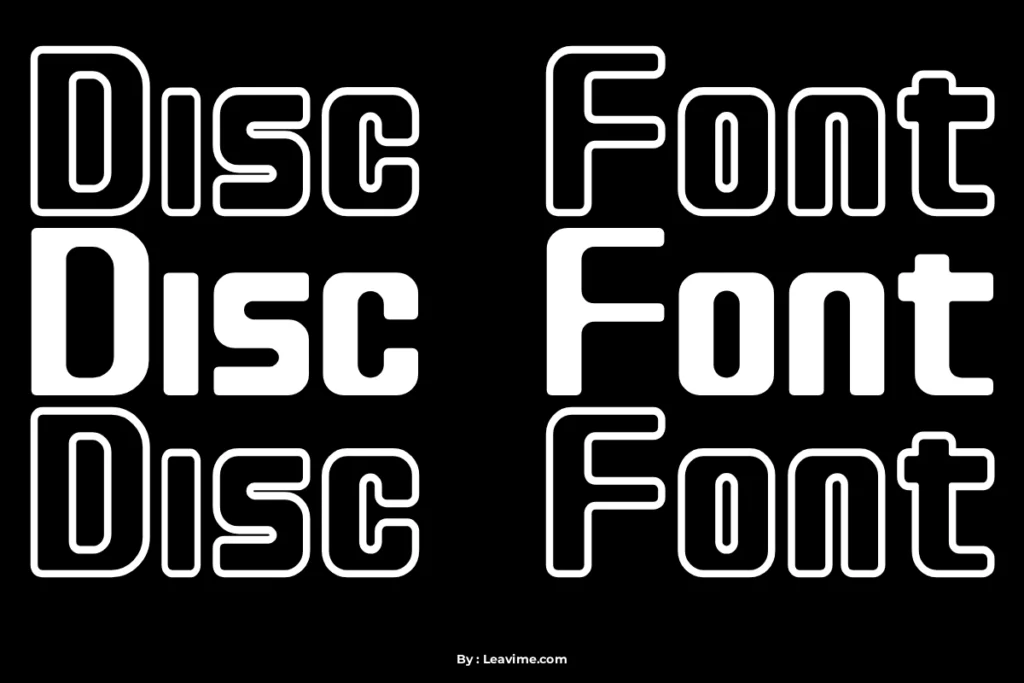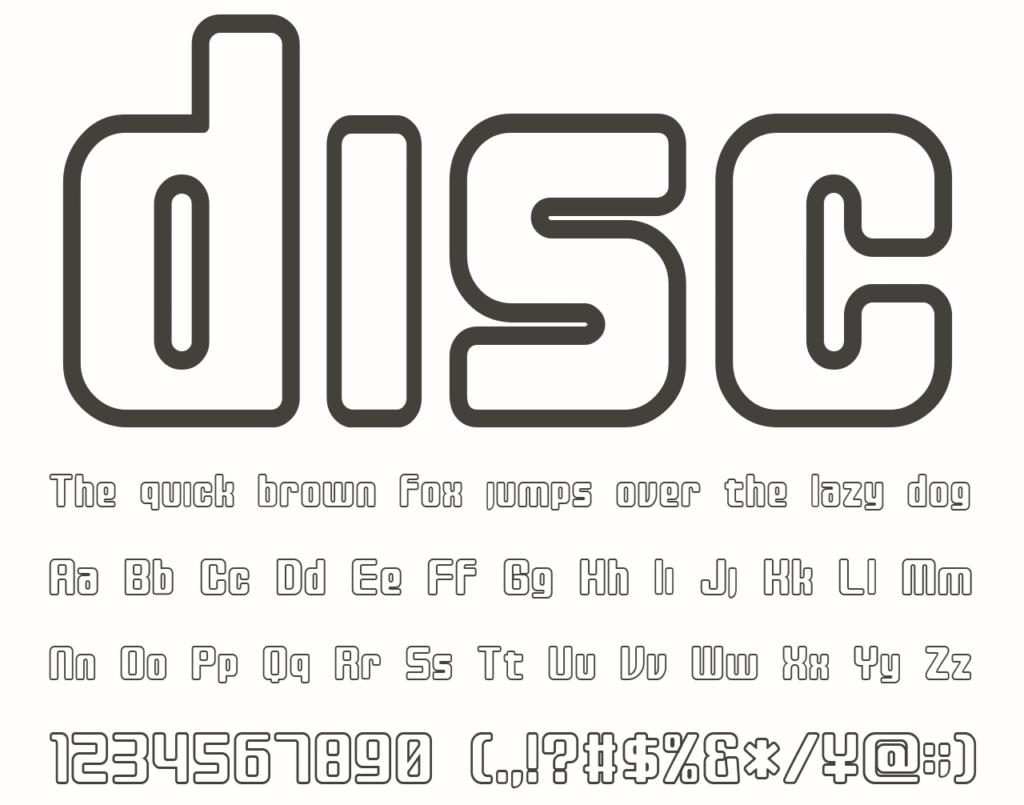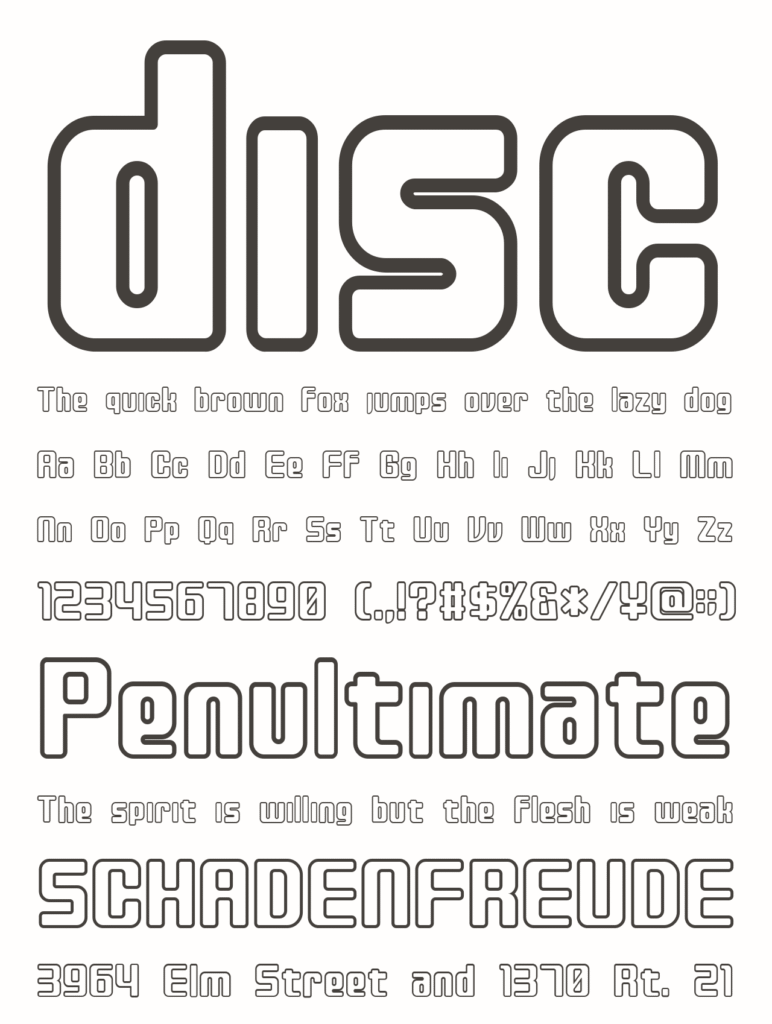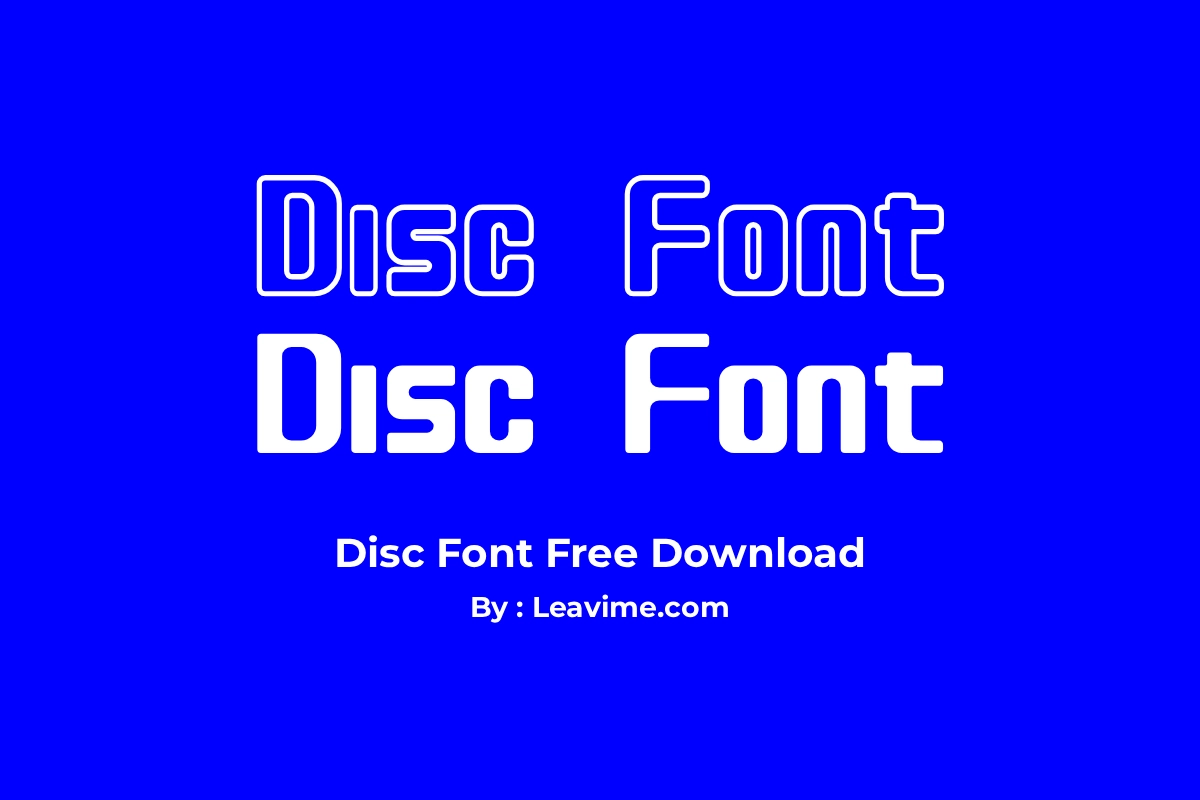
Disc Font – Decorative and Futuristic Font
Disc Font is a modern display font designed to stand out with its strong geometric shapes and clean outlines. As a bold font with a distinctive outline font style, it delivers high visual impact, making it ideal for headlines, logos, posters, and branding projects that need instant attention.
This decorative font carries a clear sci-fi font and futuristic font aesthetic. Its rounded yet structured letterforms create a digital and technological feel, perfect for sci-fi themes, gaming visuals, tech branding, music artwork, and experimental design concepts that aim to look modern and forward-thinking.
With full uppercase, lowercase, numerals, and symbols, Disc Font offers flexibility for both digital and print use. Whether you need a display font for creative titles or a bold font to enhance futuristic layouts, this decorative outline font helps your designs look unique, dynamic, and memorable.